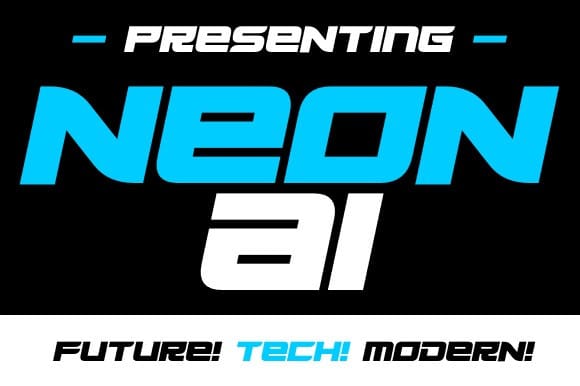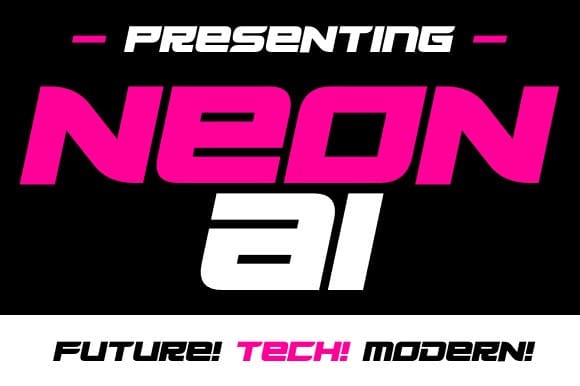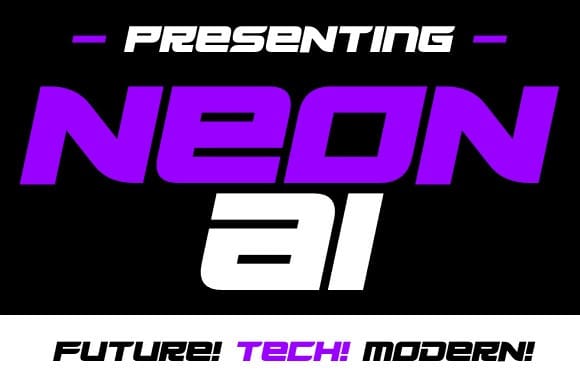
Neon AI Font
Neon AI Font is a futuristic font inspired by the visual of technology that is found in sports logos, techno design, Sci-Fi movies, games, and gadgets. It is perfect for logos, labels, posters, packaging, books, movies, presentations, games, and much more!